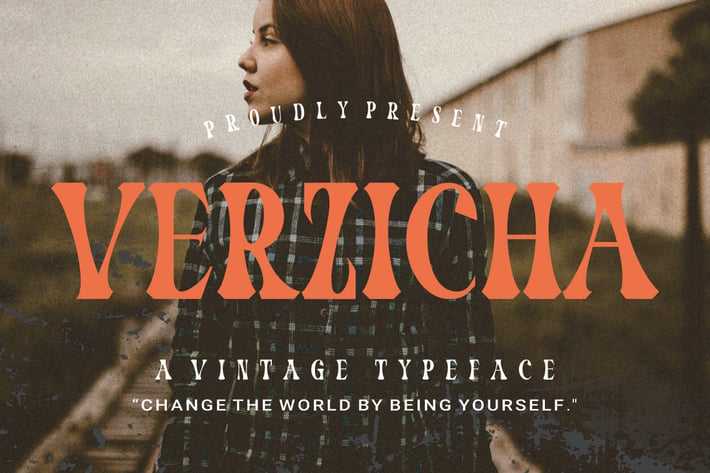
Verzicha - Vintage typeface Font
Introducing our new product Verzicha - Vintage typeface Font Modern Font
Verzicha - Vintage typeface Font - Modern Font is a bold and authentic display font. The font is suitable for any branding project like logo, t-shirt printing, esport, and many more. outstanding in a wide range of contexts.